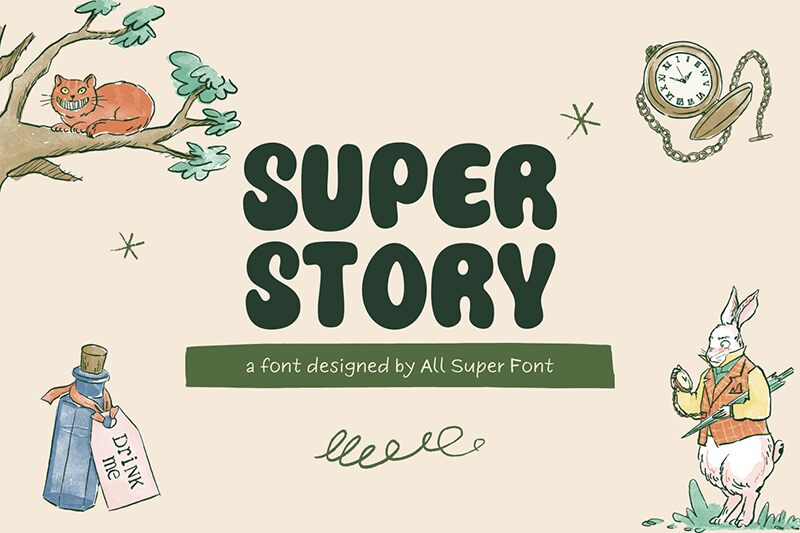
Super Story
Super Story font by fsuarez913 is a bold, cartoon display font with a bubbly, casual aesthetic. Its rounded, playful characters burst with personality, evoking fun and adventure. Perfect for capturing imagination, it adds whimsy and charm to any project.
This free display font is ideal for storybooks, comics, playful branding, social media graphics, headlines, posters, children’s projects, packaging design, invitations or cards for playful events and parties.